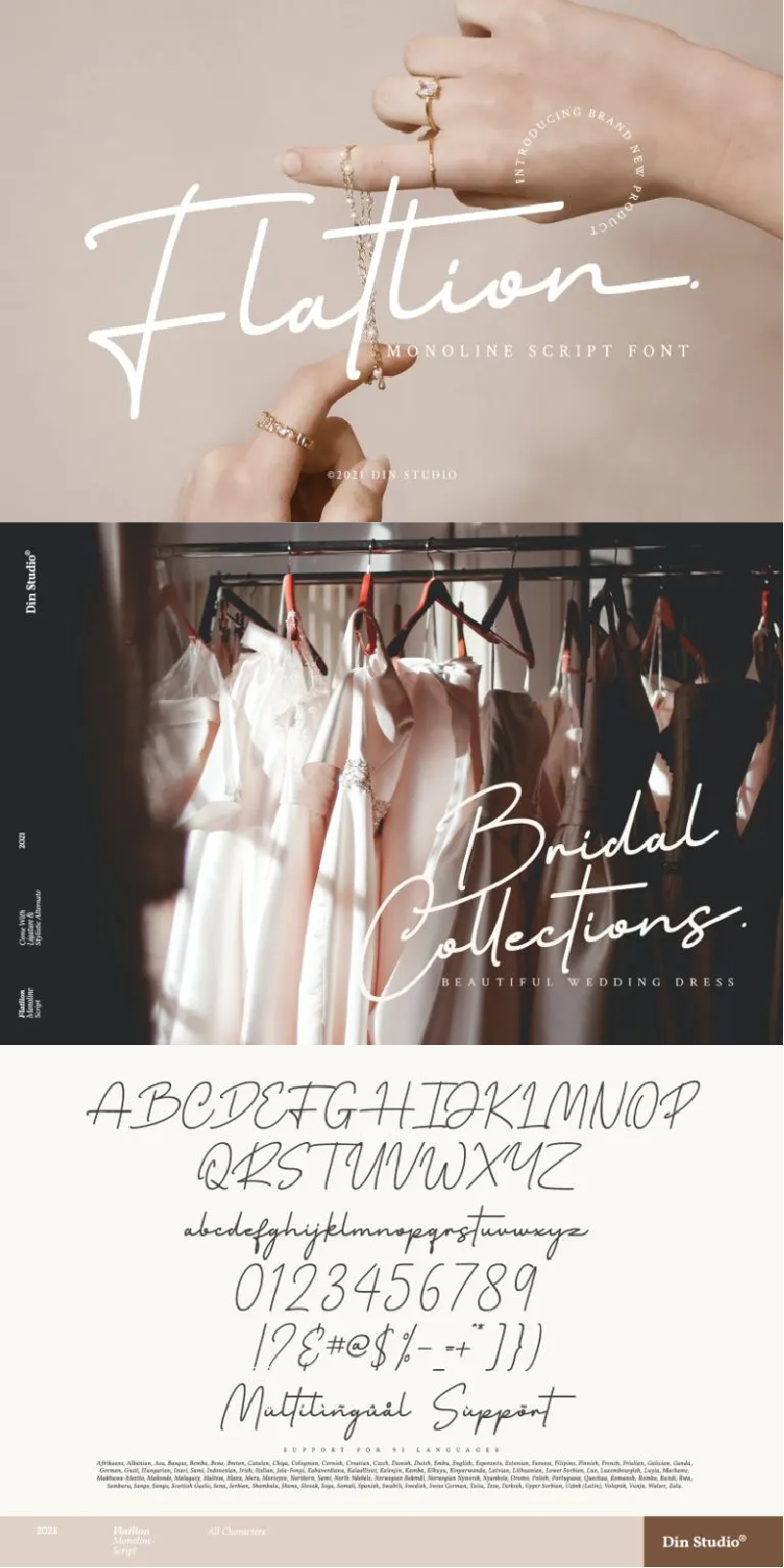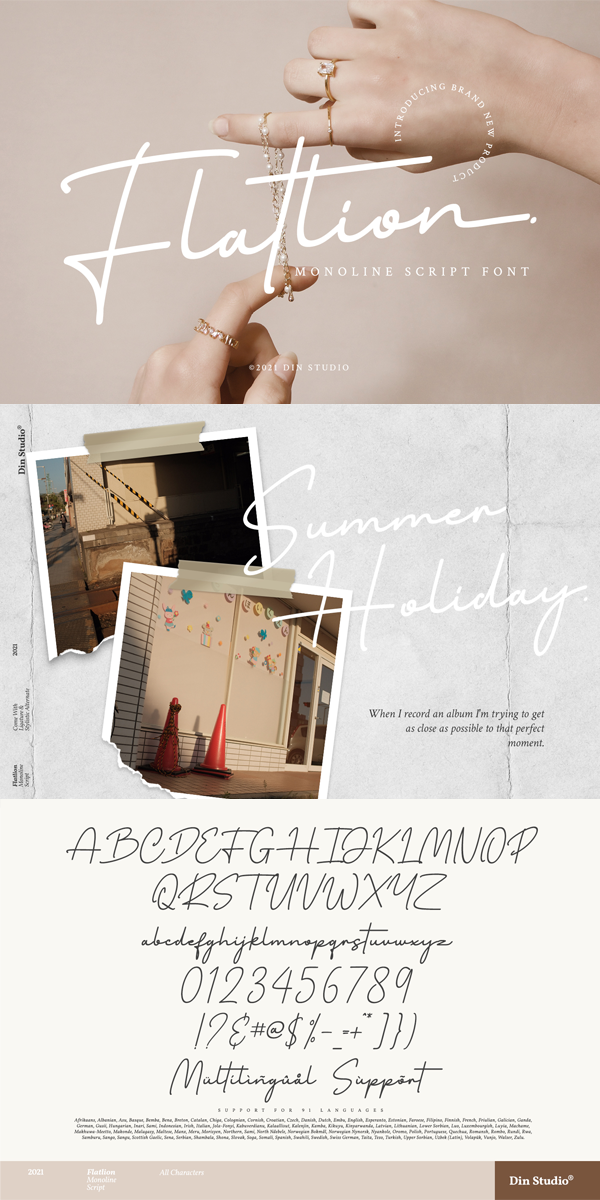
Flatlion Font
About Flatlion
Flatlion – A Script Font
The elegant typeface style looks very interesting for loads of different projects and promotions. It is perfect to use on your websites, social media brandings, Pinterest banners, printed products, and more! See the previews above to get some inspiration on how you can use them.